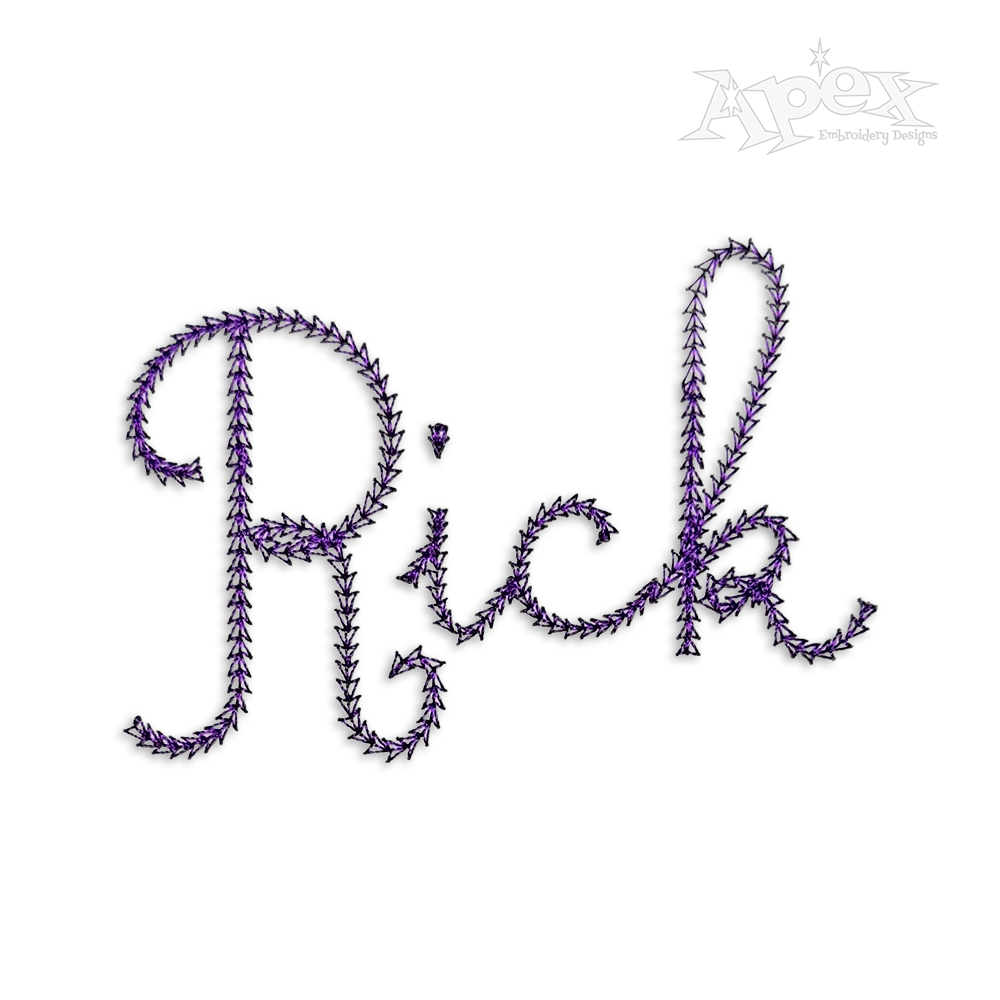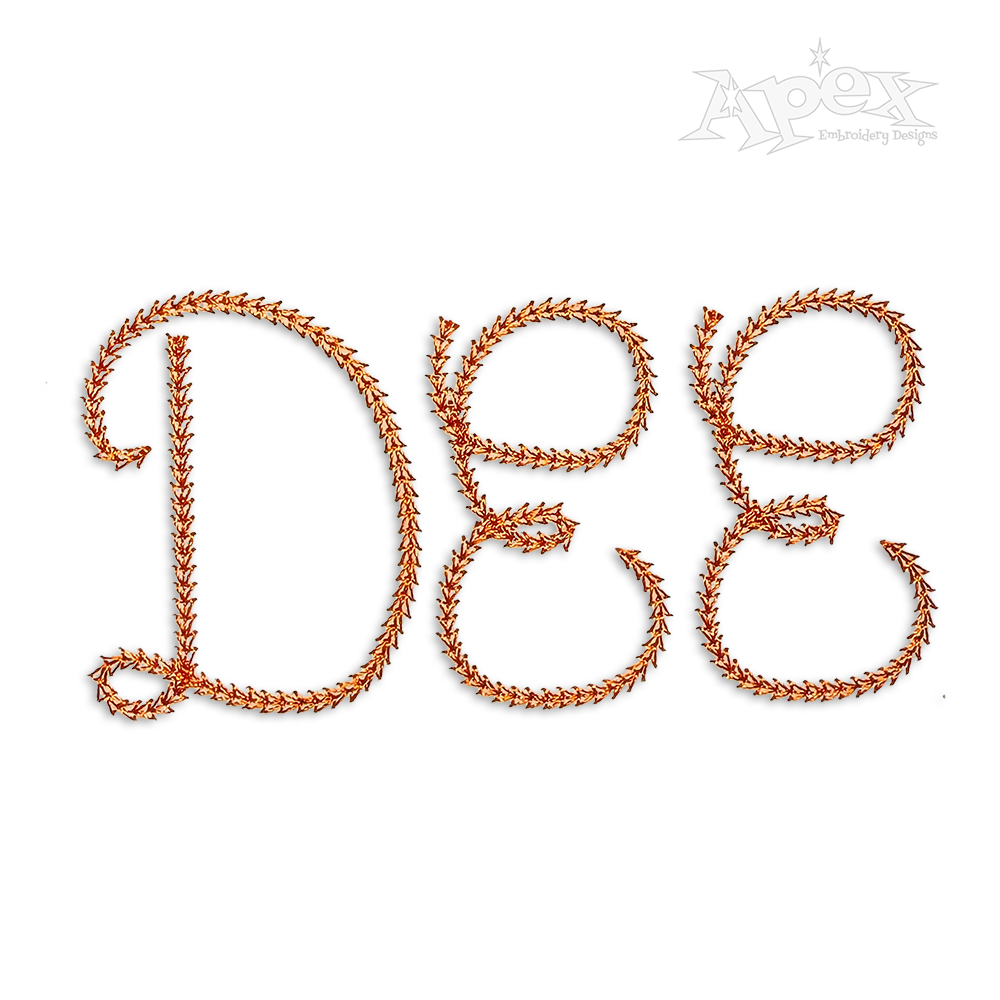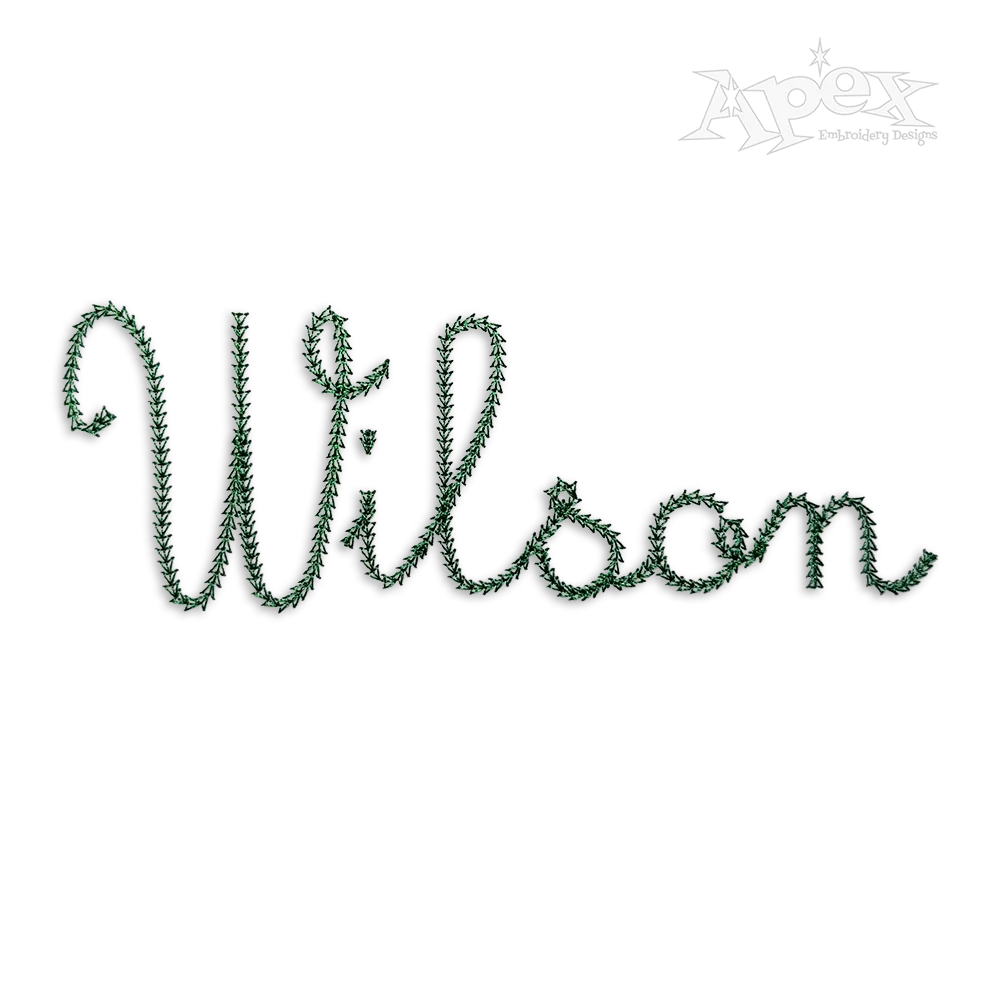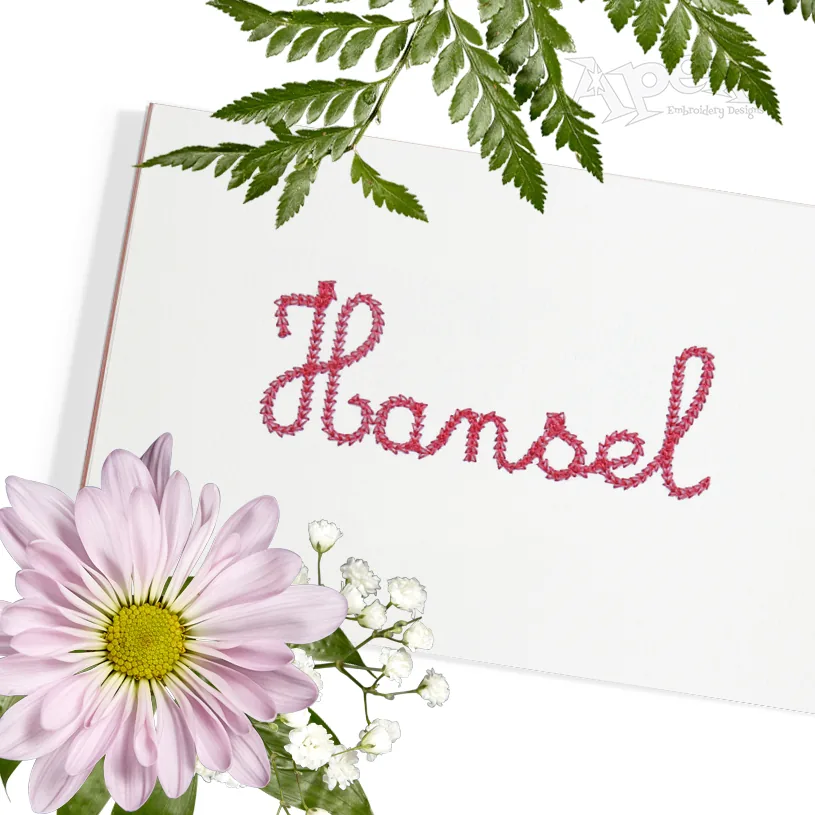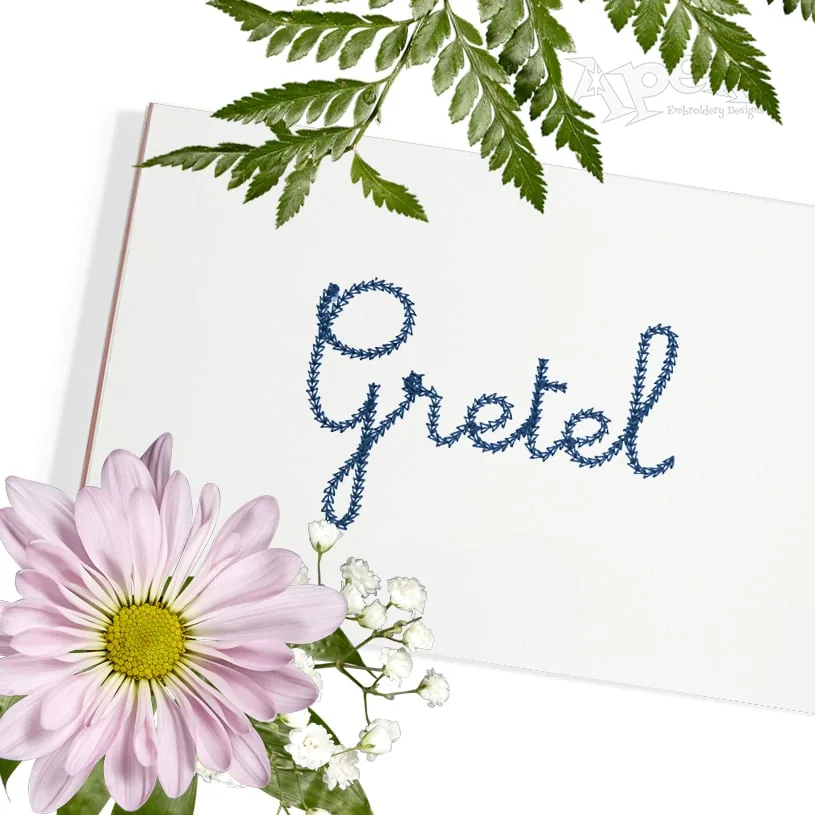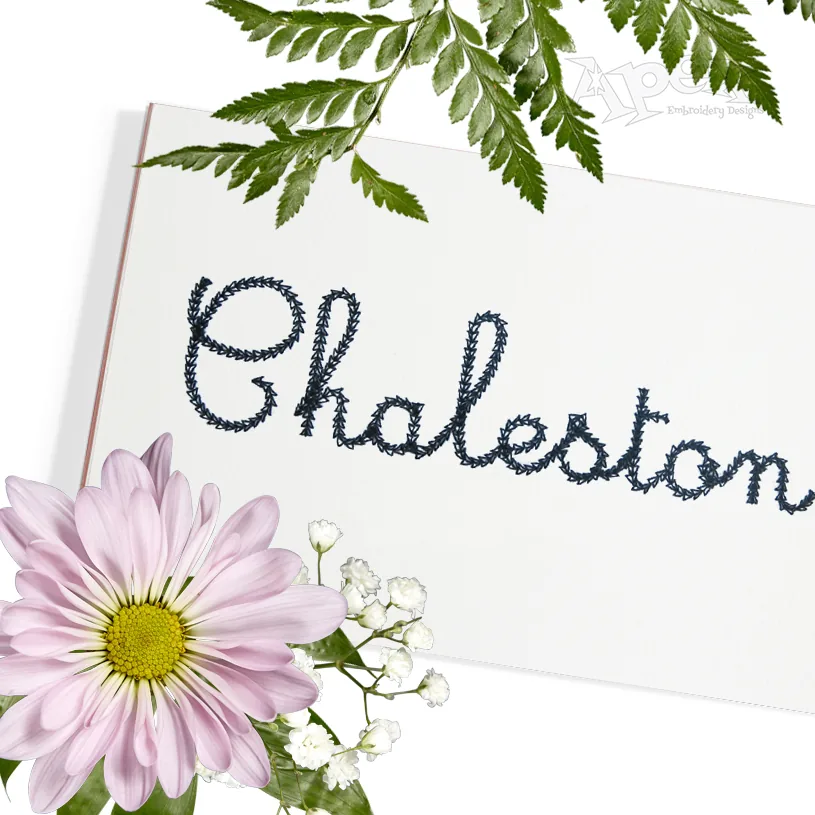
Hansel Script Chain Embroidery Font
There is an undeniable warmth in the tactile rhythm of vintage chain stitch—a nostalgic whisper reminiscent of antique hand-worked tambour embroidery and mid-century bespoke keepsakes. When digitizing Hansel Script, our studio sought to capture that dimensional, loop-by-loop cadence while preserving the effortless elegance of a continuous cursive hand. Each letterform glides smoothly into the next, mimicking the authentic loft, depth, and fluid motion of thread pulled gently through heirloom fabric. Whether embellishing crisp European flax or cozy knitwear, this font brings a relaxed, handcrafted soul to modern machine embroidery.
Designed with meticulous attention to scale and stitch balance, Hansel Script provides versatile sizing for everything from delicate monogramming to bold statement lettering. This collection includes four masterfully digitized sizes:
- 1.0 inch – Ideal for subtle cuff initials, handkerchief accents, and petite pocket monograms.
- 1.5 inch – Perfect for personalized cocktail napkins, nursery keepsakes, and cosmetics pouches.
- 2.0 inch – A versatile scale for linen guest towels, pillow shams, and children's knitwear.
- 2.5 inch – Sized for prominent center-chest apparel, heirloom tote bags, and jacket backs.
Project Ideas for Hansel Script
The textured, artisanal quality of Hansel Script makes it an inspiring choice for projects that demand authentic vintage flair and personalized charm:
- Luxury Table Linens: Stitch names or botanical-inspired initials along the scalloped edges of linen cocktail napkins and natural flax runners.
- Heirloom Nursery Essentials: Personalize chunky-knit baby sweaters, milestone swaddles, and quilted keepsake blankets with a soft, hand-embroidered feel.
- Bespoke Resort & Loungewear: Transform relaxed cotton sweatshirts, oversized linen shirts, and canvas beach totes into personalized boutique staples.
- Bridal Party Gifting: Monogram waffle-weave robes, satin travel pouches, and custom bridal denim jackets for timeless wedding party keepsakes.
Because chain stitch lettering conveys a relaxed yet sophisticated personality, intentional placement elevates the finished piece from simple stitching to custom couture:
- Corner Diagonal: Angle names or single-letter monograms across the corner of table napkins and fine handkerchiefs, maintaining a 1.5 to 2-inch margin from the hem.
- Center Chest Crest: Place titles or cursive initials 3 to 4 inches down from the neckline on tees and sweatshirts for a modern, collegiate-inspired aesthetic.
- Sleeve & Cuff Accents: Run single-line names or monograms parallel to a cuff edge on button-down shirts, lounge sets, or jacket sleeves.
- Off-Center Pocket Border: Position script casually above an open tote pocket or shirt breast pocket to celebrate the organic flow of the letterforms.
Hansel Script Craft & Letterform Details
Digitizing a chain stitch font requires a fundamentally different philosophy than traditional satin stitching. Rather than dense, planar fills, Hansel Script is engineered with open, interconnected loop paths that simulate the rhythmic drop and pull of a manual chain needle. We paid delicate attention to stitch velocity, angle shifts, and turn clearances to ensure thread travels naturally through the cursive ligatures without stacking bulk or pulling the base material.
The lowercase glyphs feature gentle, open counters and graceful looping ascenders that prevent thread crowding, even in the smaller one-inch scale. Capital letters strike an effortless balance between mid-century Americana script and timeless calligraphy, offering dramatic initial flourishes that stand gracefully alone or flow naturally into accompanying lowercases. The resulting embroidery delivers pliable texture, exceptional drape, and a true artisan finish that honors historic needlecraft.